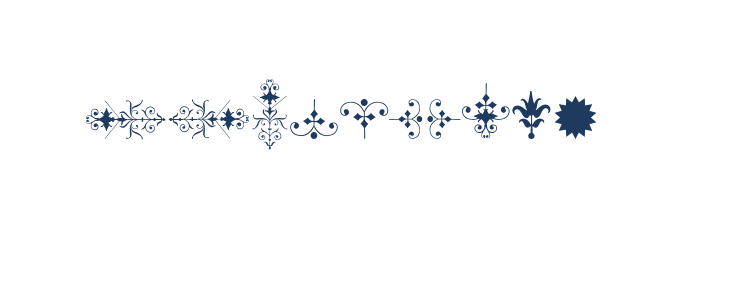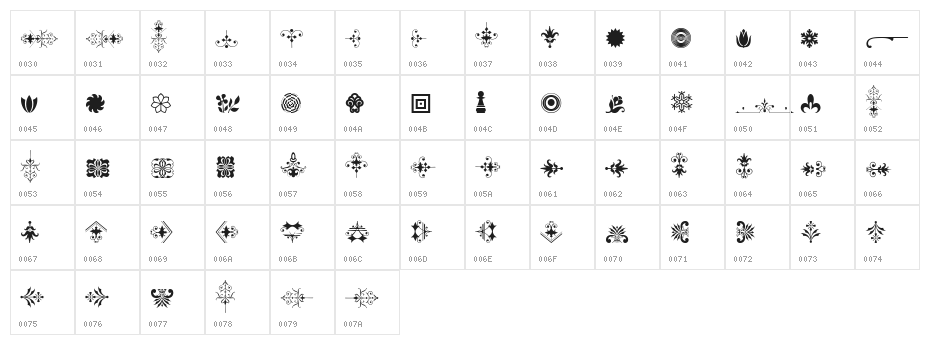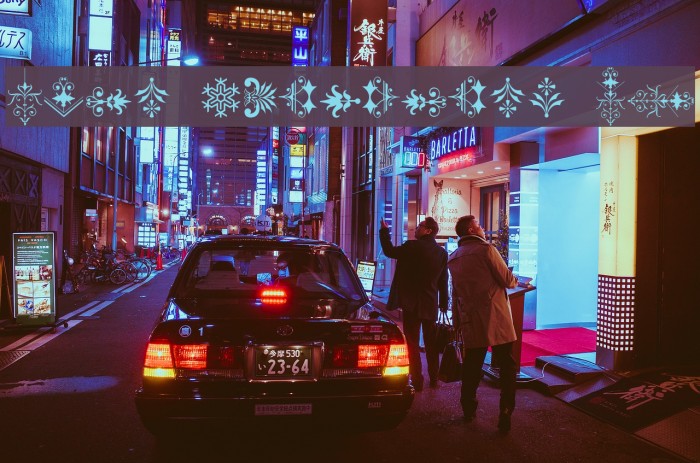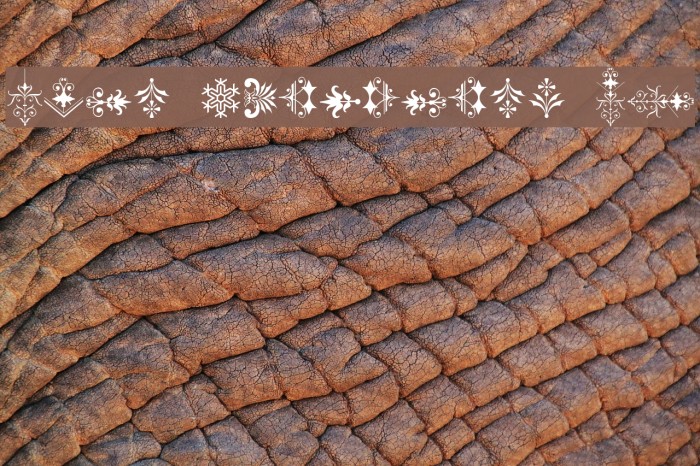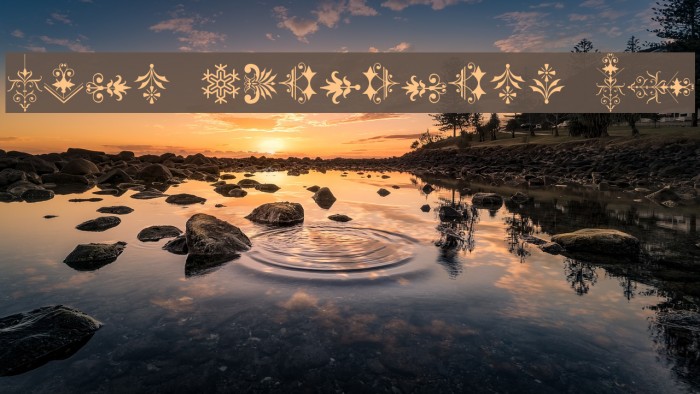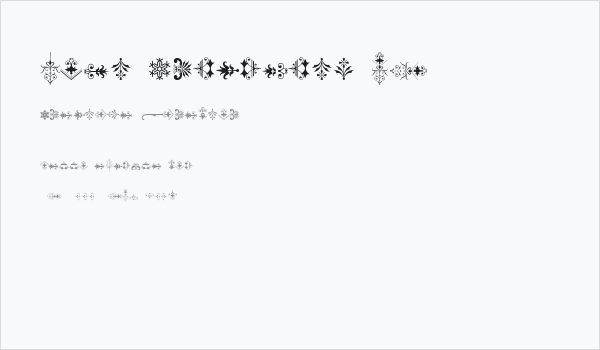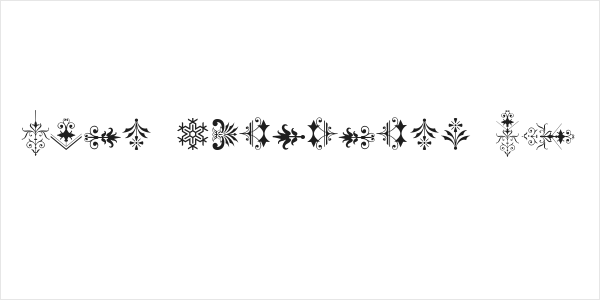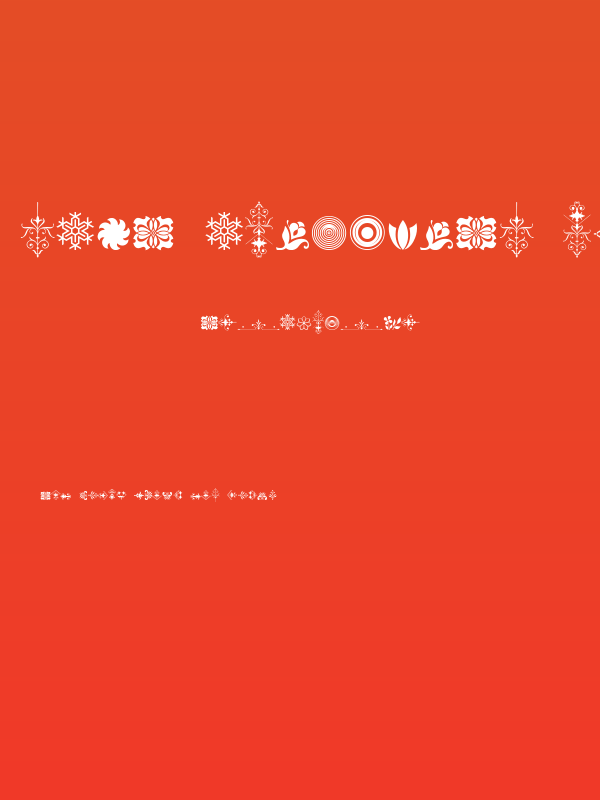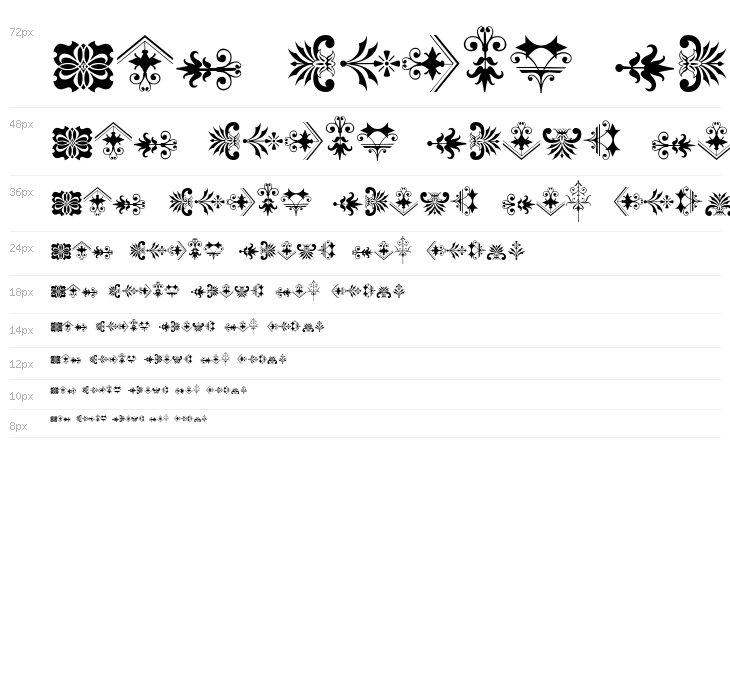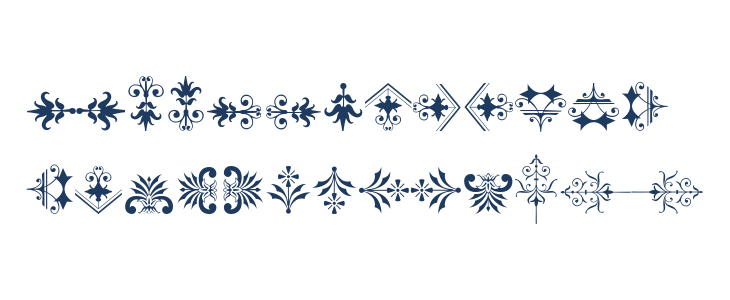
Soft Ornaments 21 Font
Soft Ornaments 21 Description
A collection of intricate ornamental glyphs featuring floral, geometric, and decorative motifs, rendered in bold black lines with high detail and symmetry. The designs vary from simple swirls and flowers to complex flourishes and borders, suitable for embellishing documents or designs.
Overall StyleDecorative, Vintage
Use CaseOrnaments, Borders, Accents, Decorative elements
Proposed ProjectsWedding invitations, certificates, decorative borders, vintage posters, book covers, scrapbooking, branding accents.